Irene is our senior type designer and has been designing Greek and Latin typefaces with TypeTogether since May 2013. After trying life as an artist and a violinist, Irene found her vocation in creating alphabets. Her terrible handwriting and horror of olives turned out to be no obstacles for her becoming a type designer specializing in Greek. She studied type design from 2003–2004 at the University of Reading and was named Miss Fontlab 2004 due to her assistant role. Besides being TypeTogether’s variable fonts master, she is totally into icons and will be the last woman standing at any decent font party.
4 · Can you name 3 fonts you love (designed by others)?
It has to be Bello Write by Underware (my HOI love), Beowolf by LettError (my first love) and Contrast Foundry’s Chimera (my new crush).
6 · What are your love/hate glyphs when designing?
I like designing a lowercase Greek zeta ‘ζ’. I also have a very vivid memory of Gerard Unger during a critique in Reading when he transformed a “zeta” into a diver. I don’t really hate any glyphs, some are just more boring than others.
9 · What is your favourite word?
‘Ghastly’ in English and ‘φεῦ’ in Greek, which means ‘alas’ in English.
10 · What is the most amazing script you have worked with? why?
Latin, the most exotic and versatile of all!
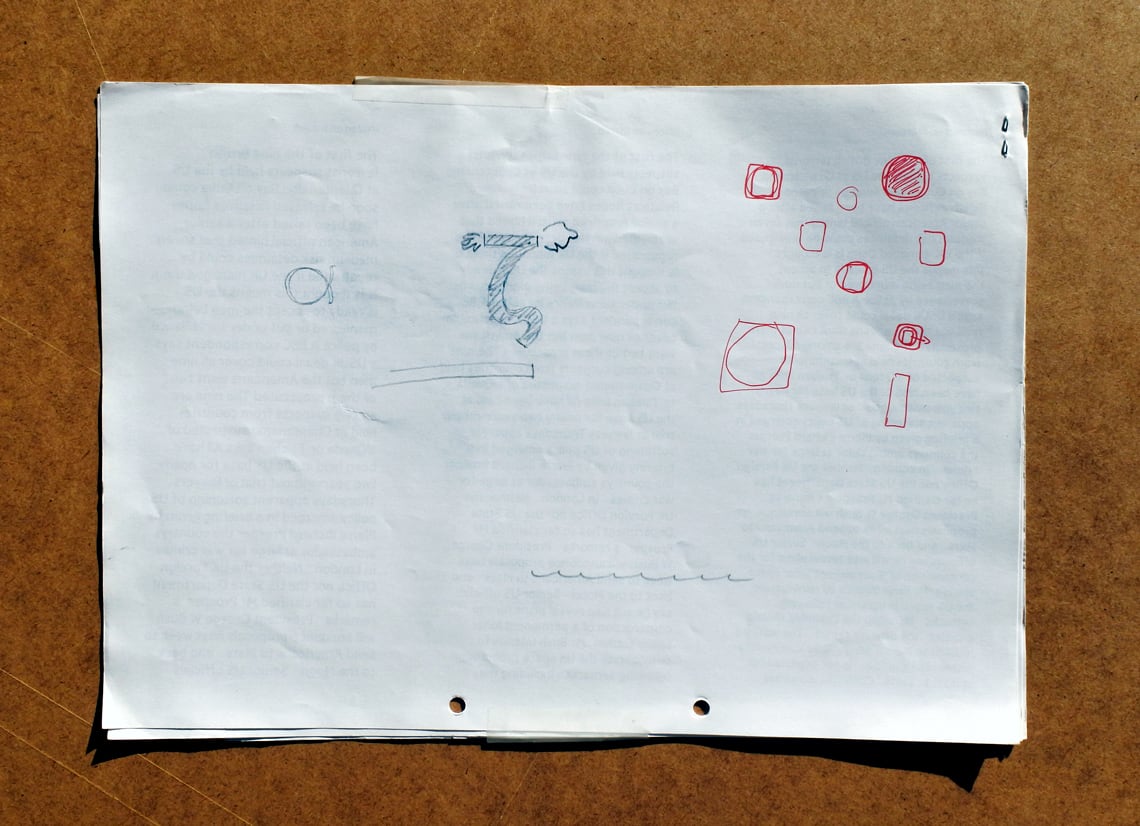
Gerard Unger’s zeta diver and alpha fish drawing.
Greek font ad from 1964 PAP catalogue.